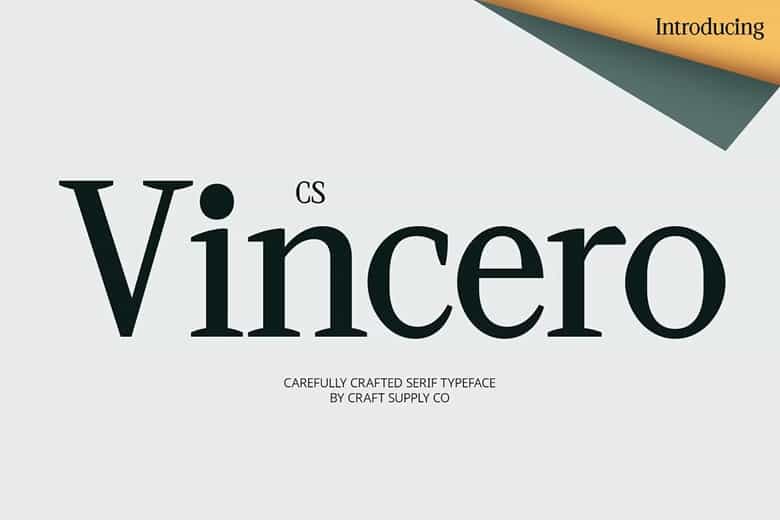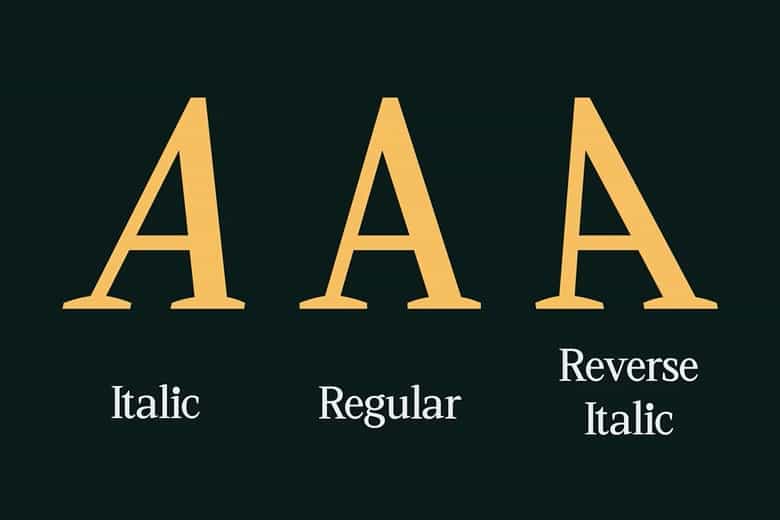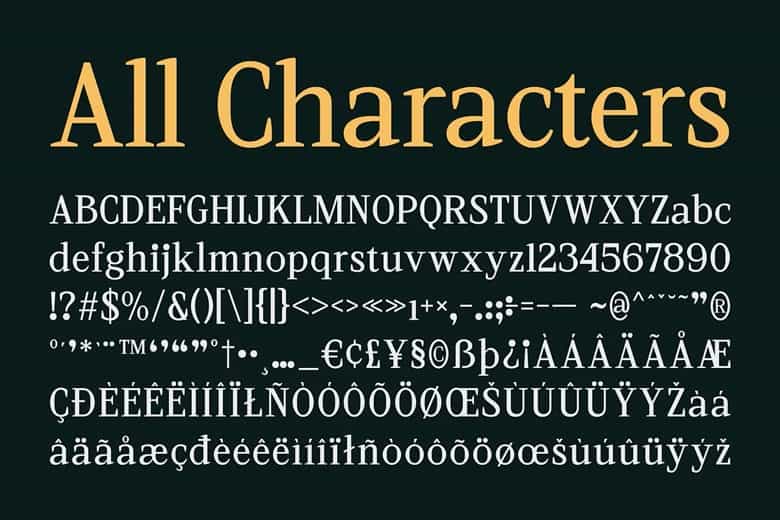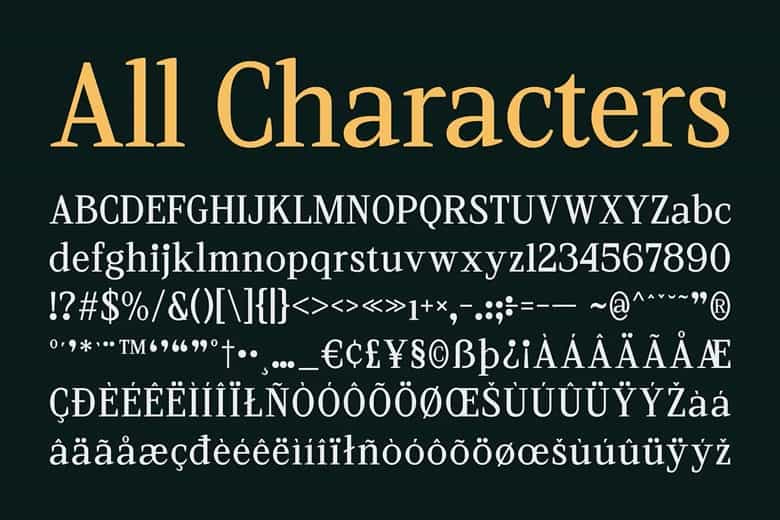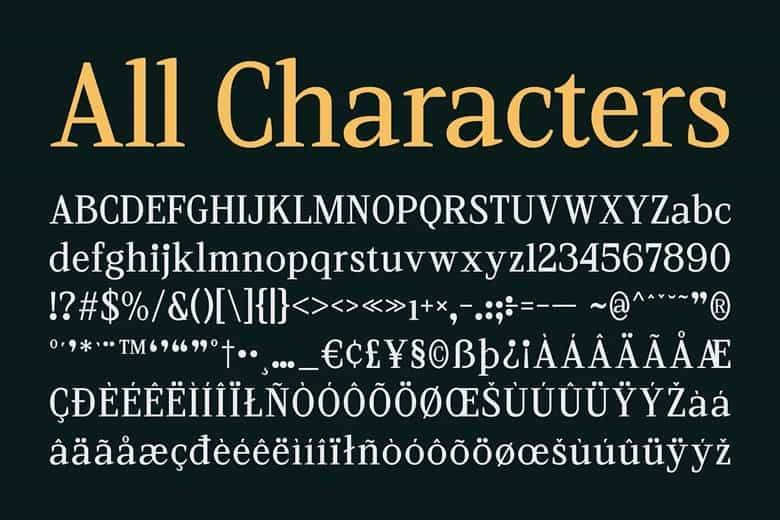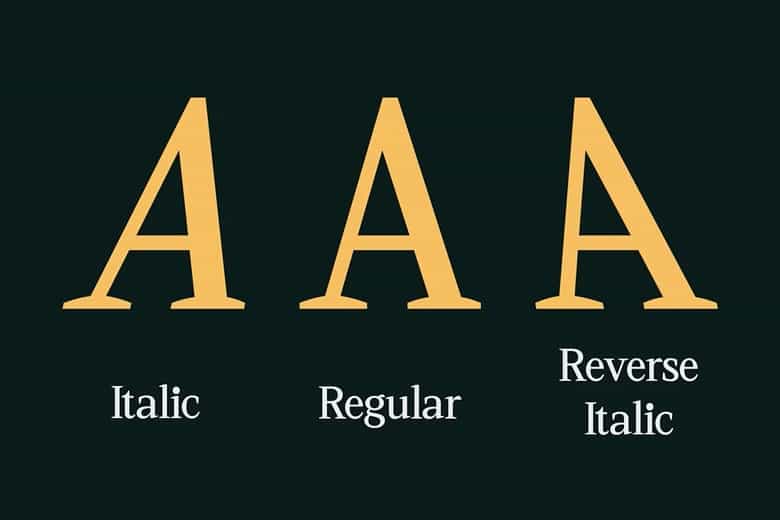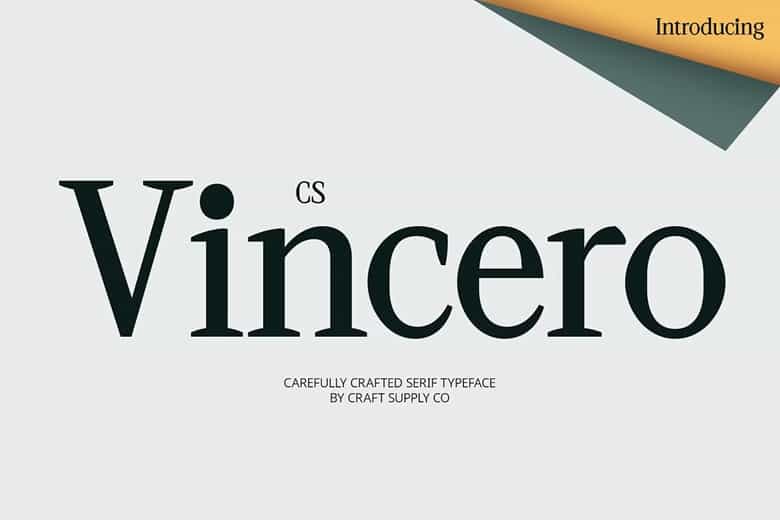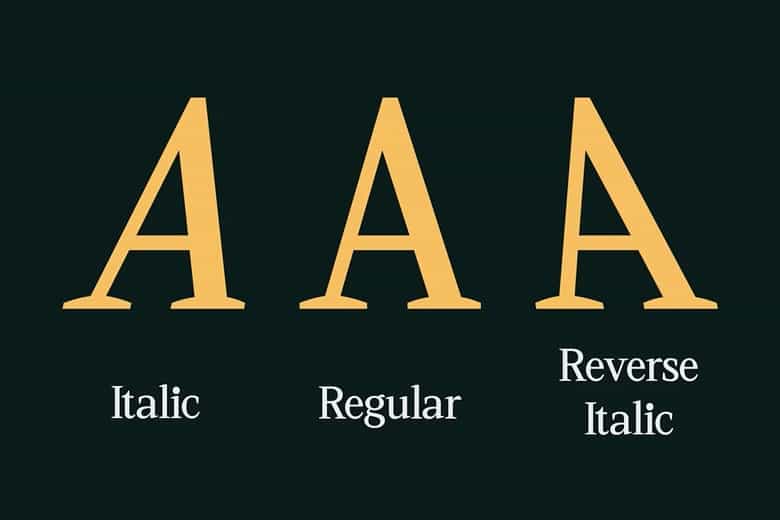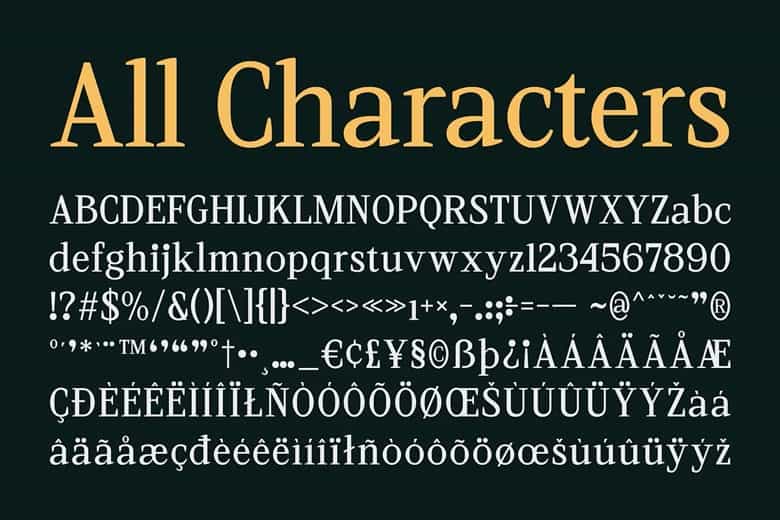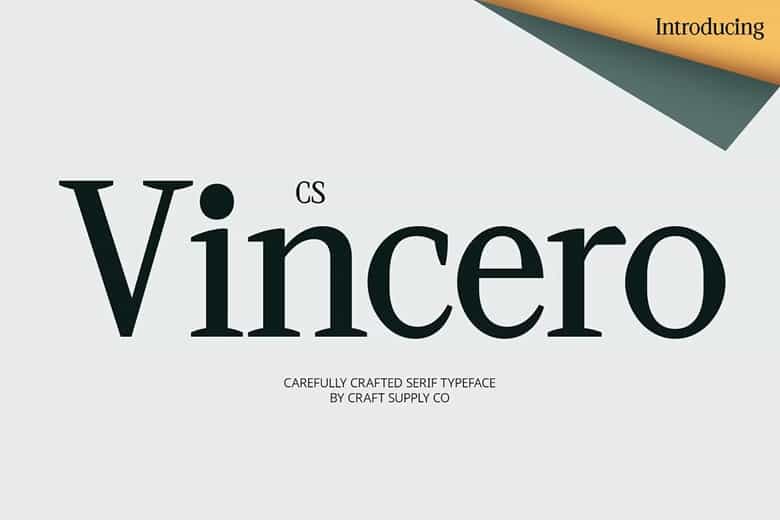
CS Vincero Font
CS Vincero is a contemporary serif font combining thin, not dirty lines and an old traditional serif design. Created in a modern sense, it has a sophisticated look that is modern but rooted and is thus ideal offered a designer desires clarity and composed style in a font.